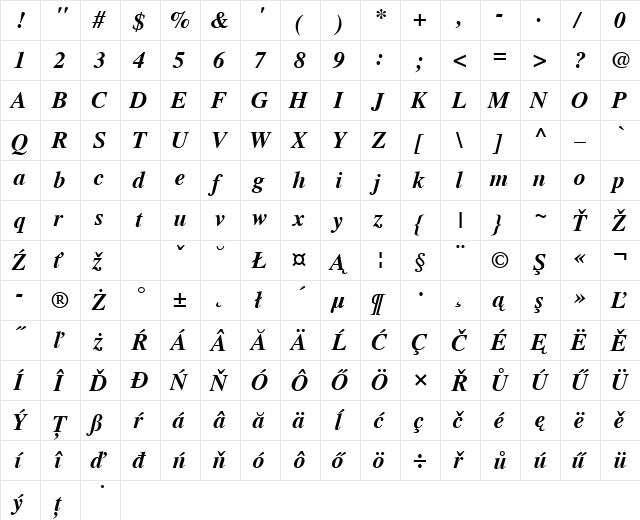
NimbusRomNo9LEE Bold Italic Font Preview
Design Context for NimbusRomNo9LEE Typeface
NimbusRomNo9LEE takes a measured approach to typography — its balanced proportions and neutral character make it a reliable workhorse for both digital and print work. The dynamic lean of this cut emphasises speed and emphasis in any layout. The heavy weight commands attention and anchors typographic hierarchies.
Pro Tip: Use NimbusRomNo9LEE for emphasis, pull quotes, and subheadings where its slanted energy can add rhythm to the layout.